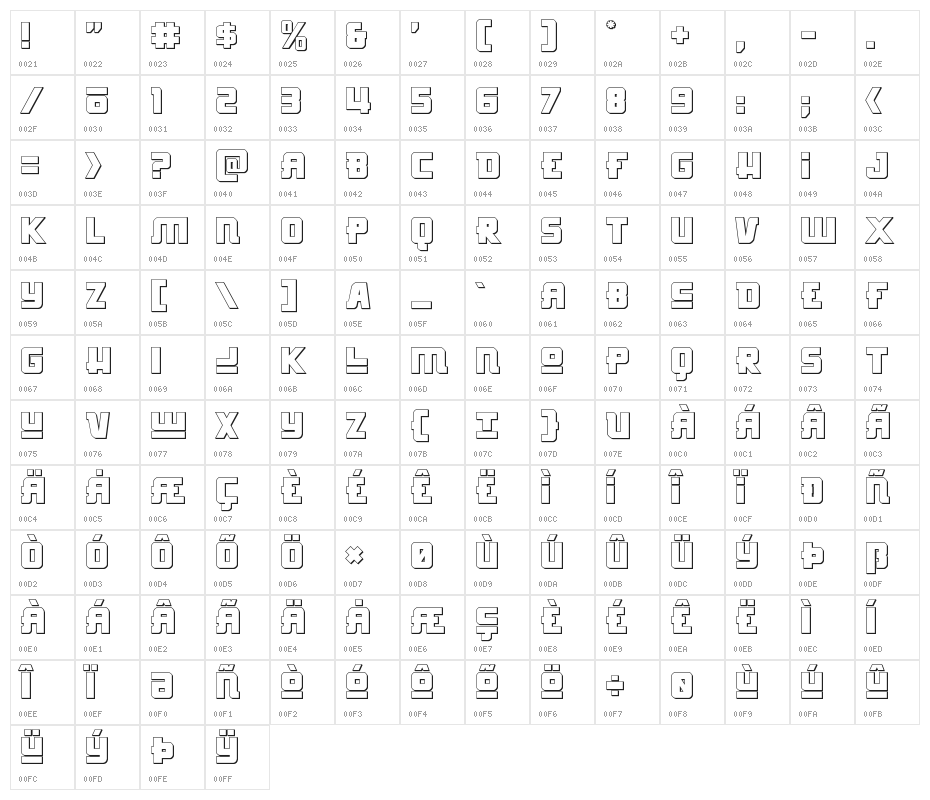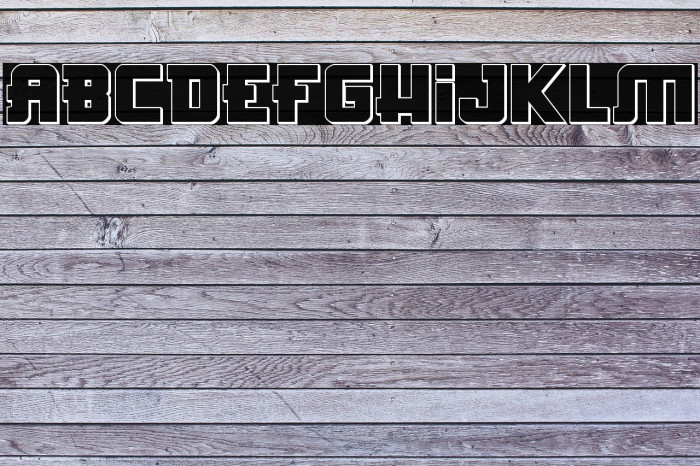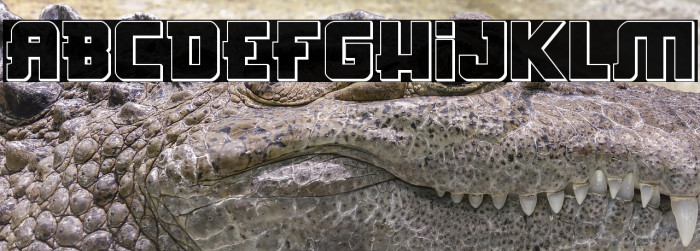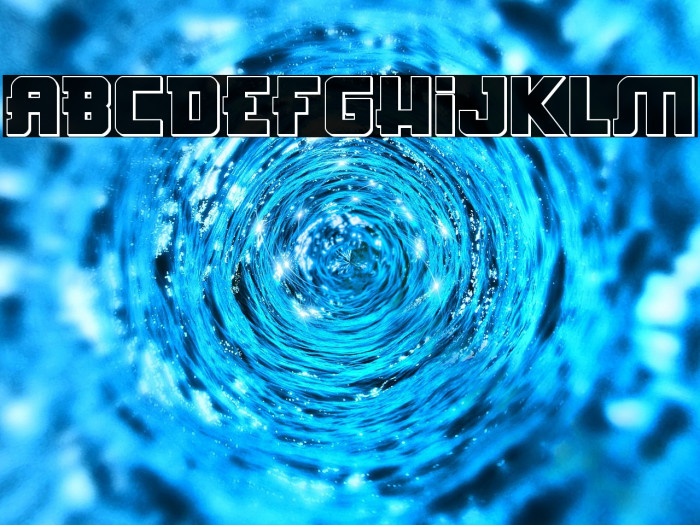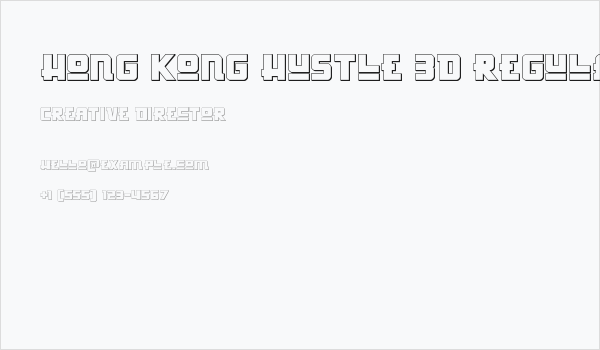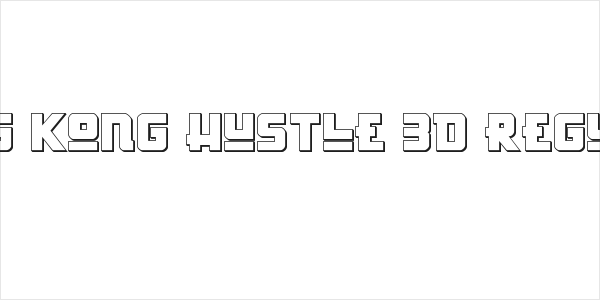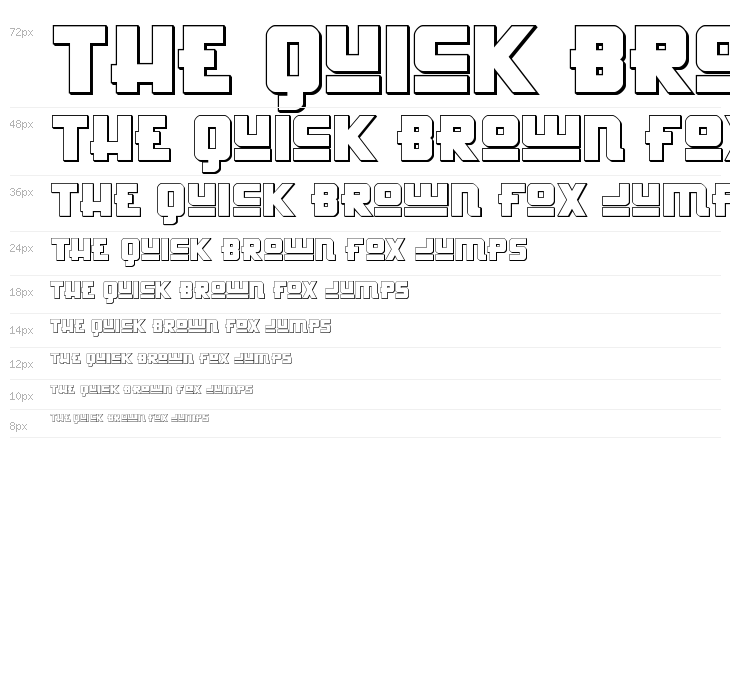
Hong Kong Hustle 3D Regular Font
Hong Kong Hustle 3D Regular Description
This font features a bold, three-dimensional style with a futuristic and urban aesthetic. The characters are outlined, giving them a hollow appearance that adds depth and a sense of movement. The geometric shapes and sharp angles create a modern and edgy look, making it ideal for designs that require a strong visual impact. The uppercase and lowercase letters maintain a consistent style, with the numbers and special characters complementing the overall design. The font's unique structure makes it stand out, perfect for projects that aim to capture attention and convey a sense of modernity and innovation.
| Proposed Projects | Ideal for posters, video game graphics, urban-themed branding, and futuristic design projects. |